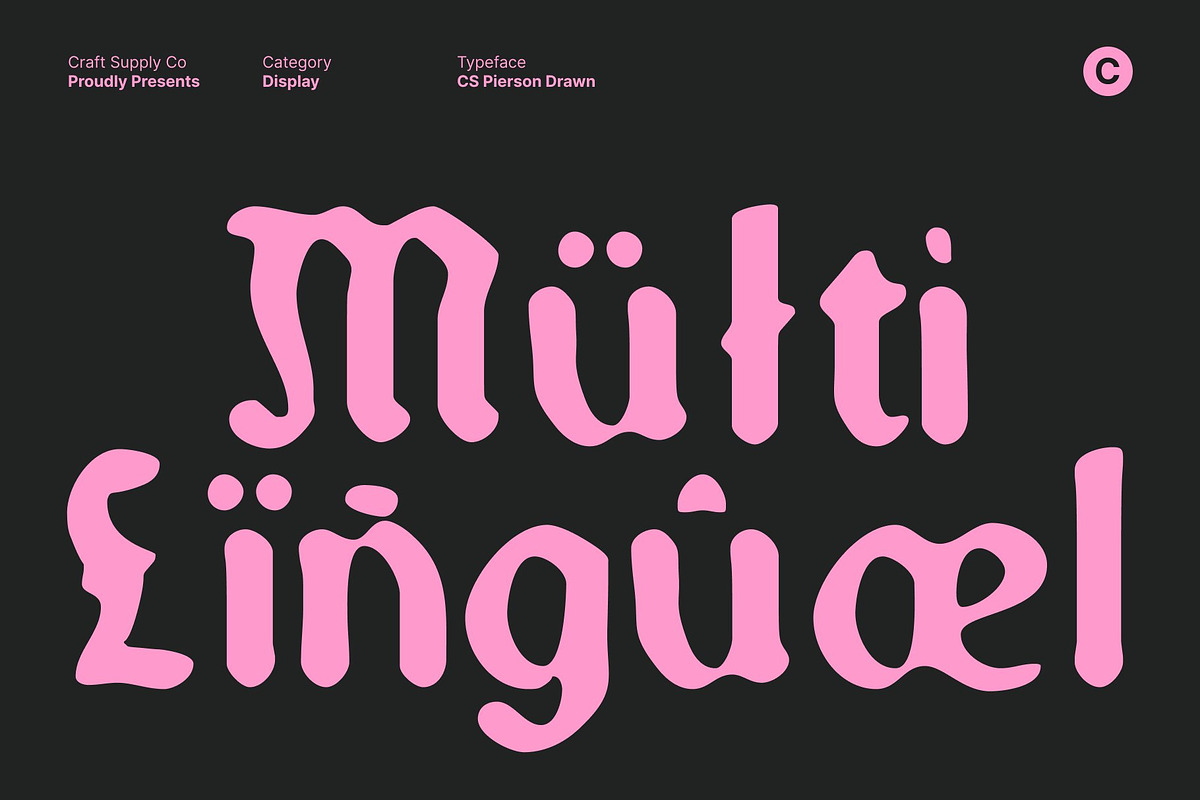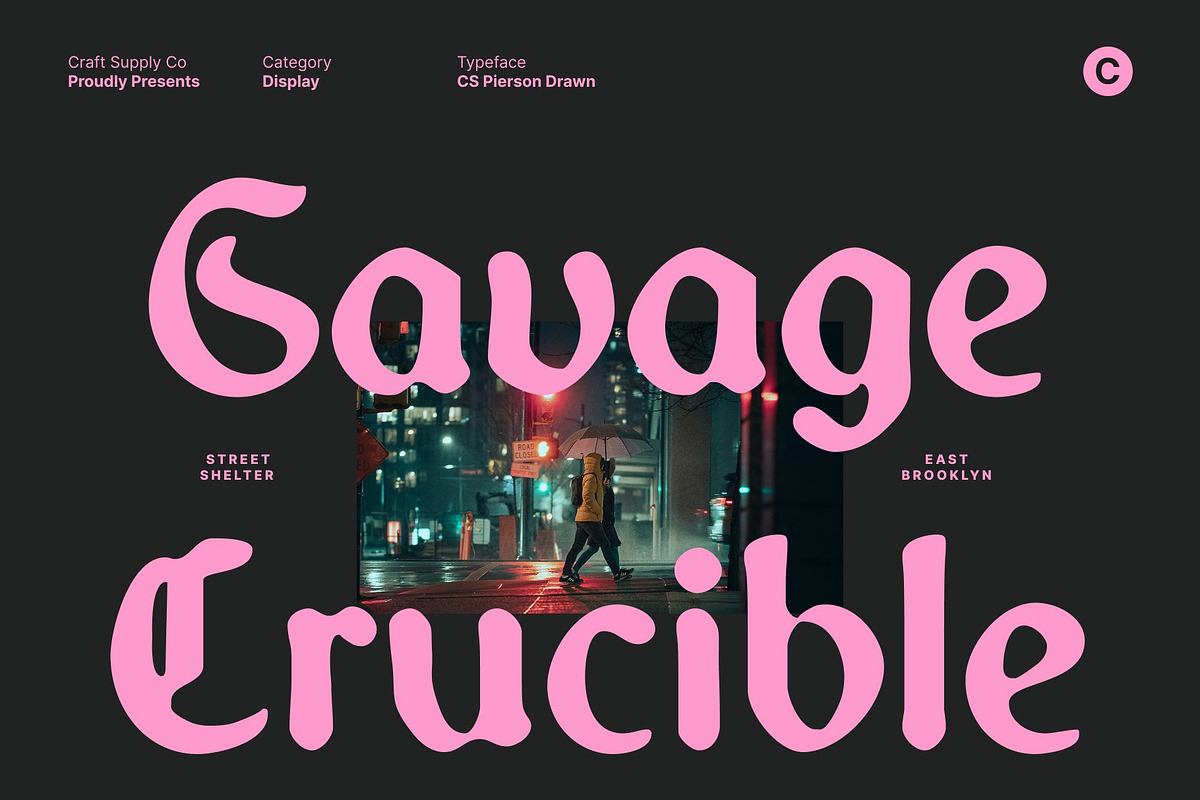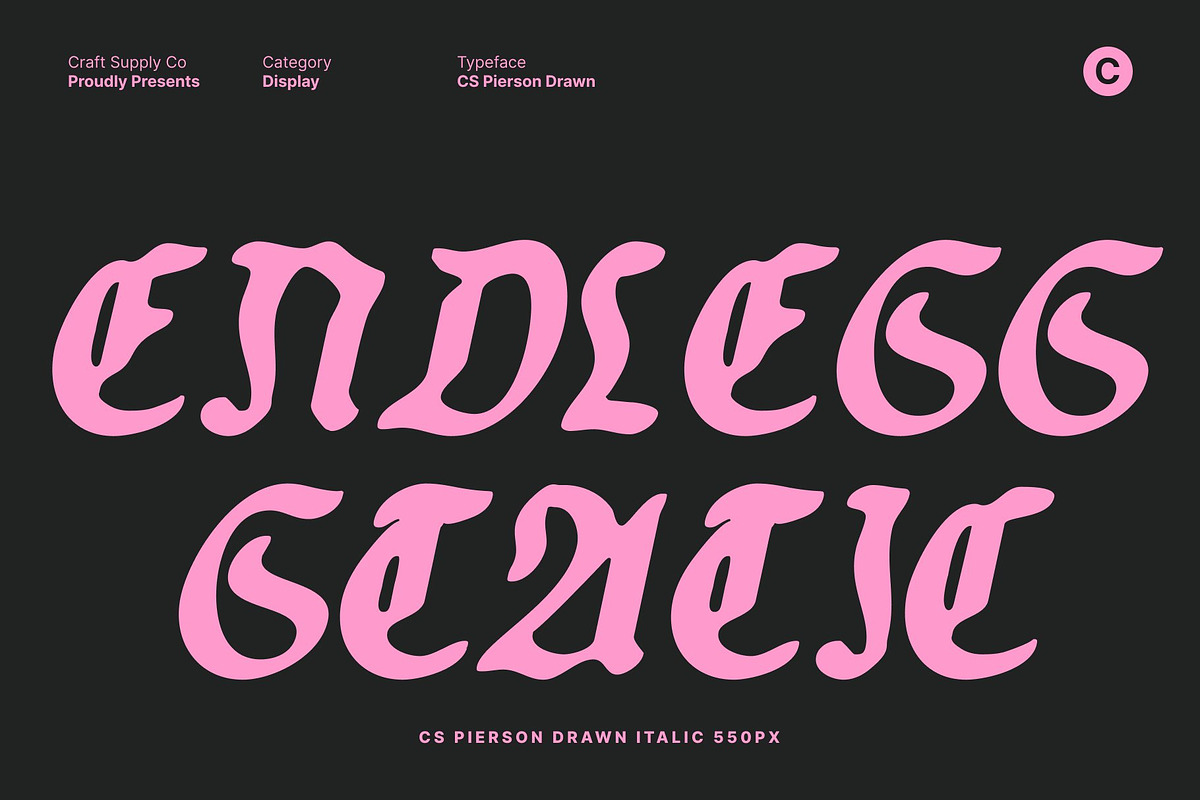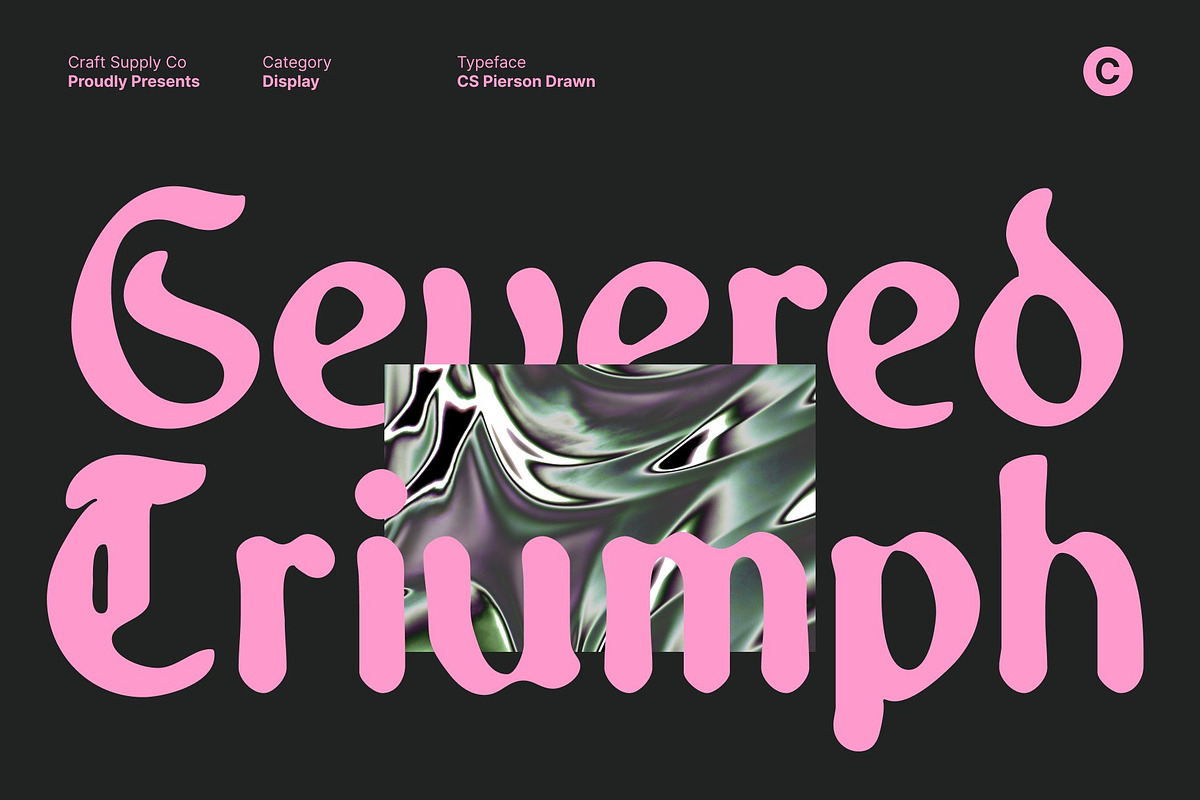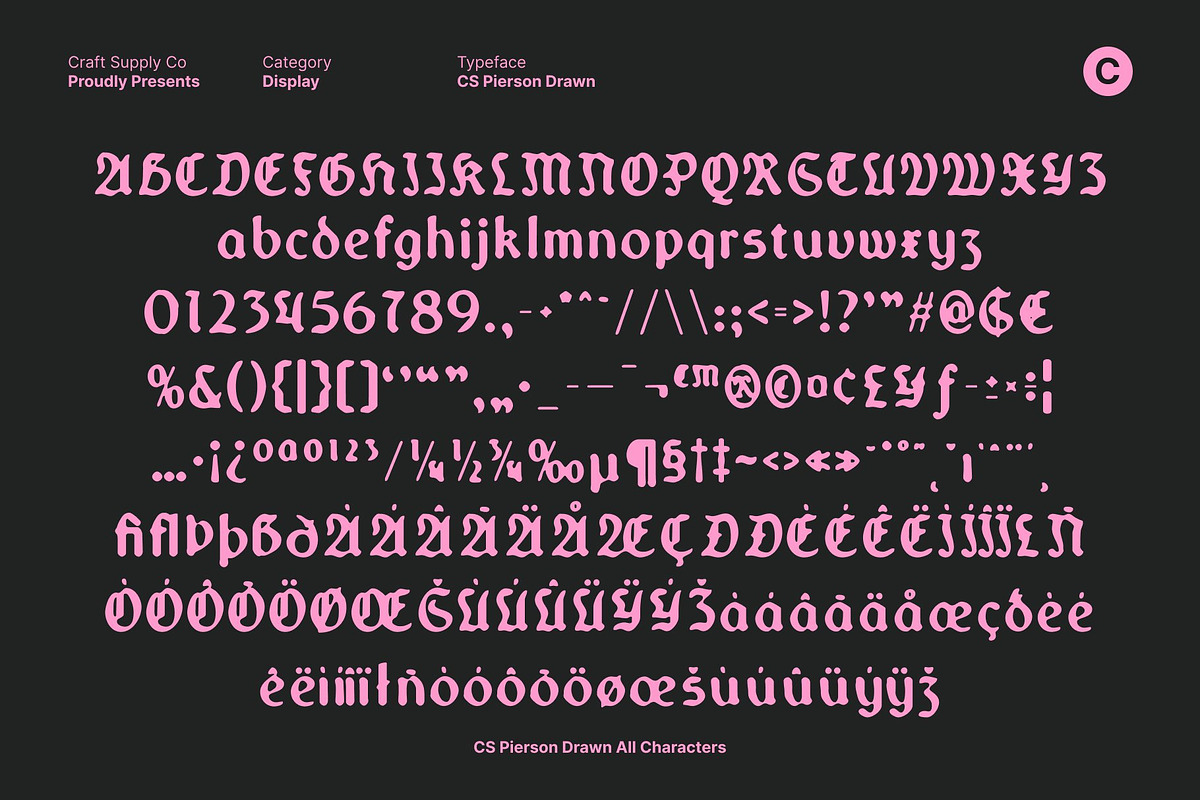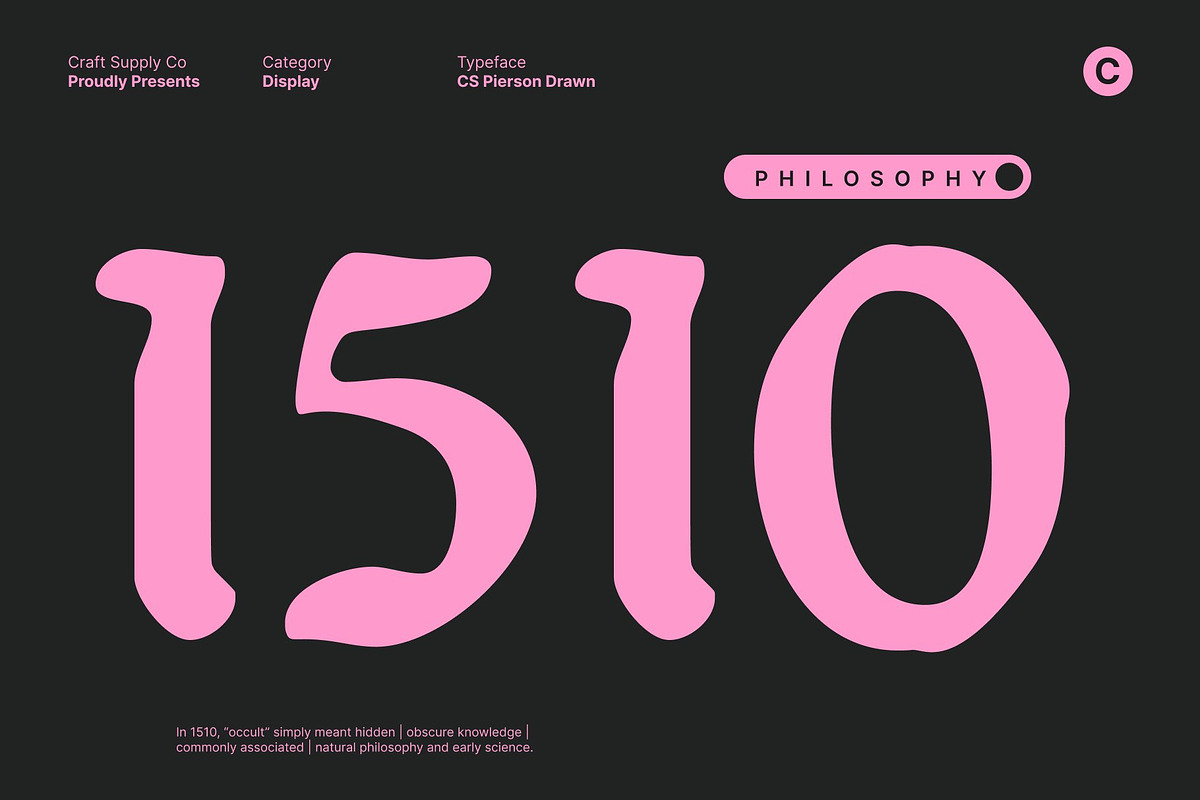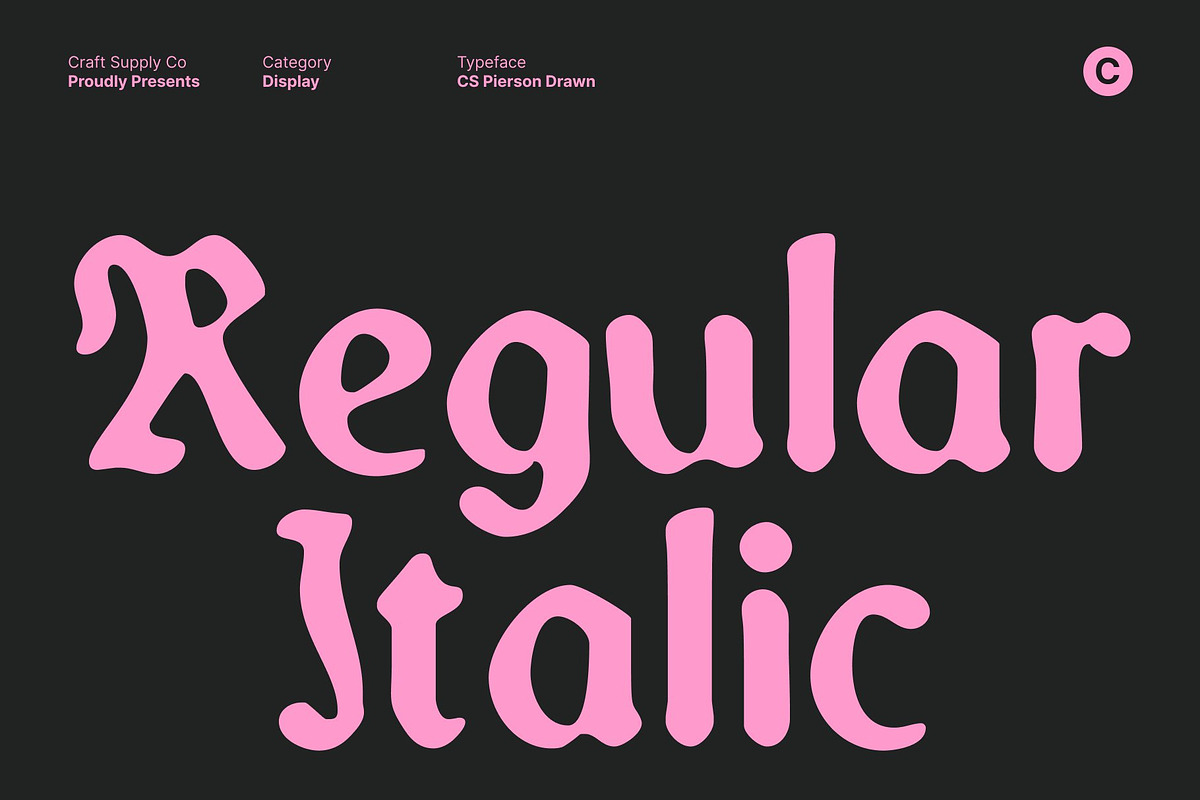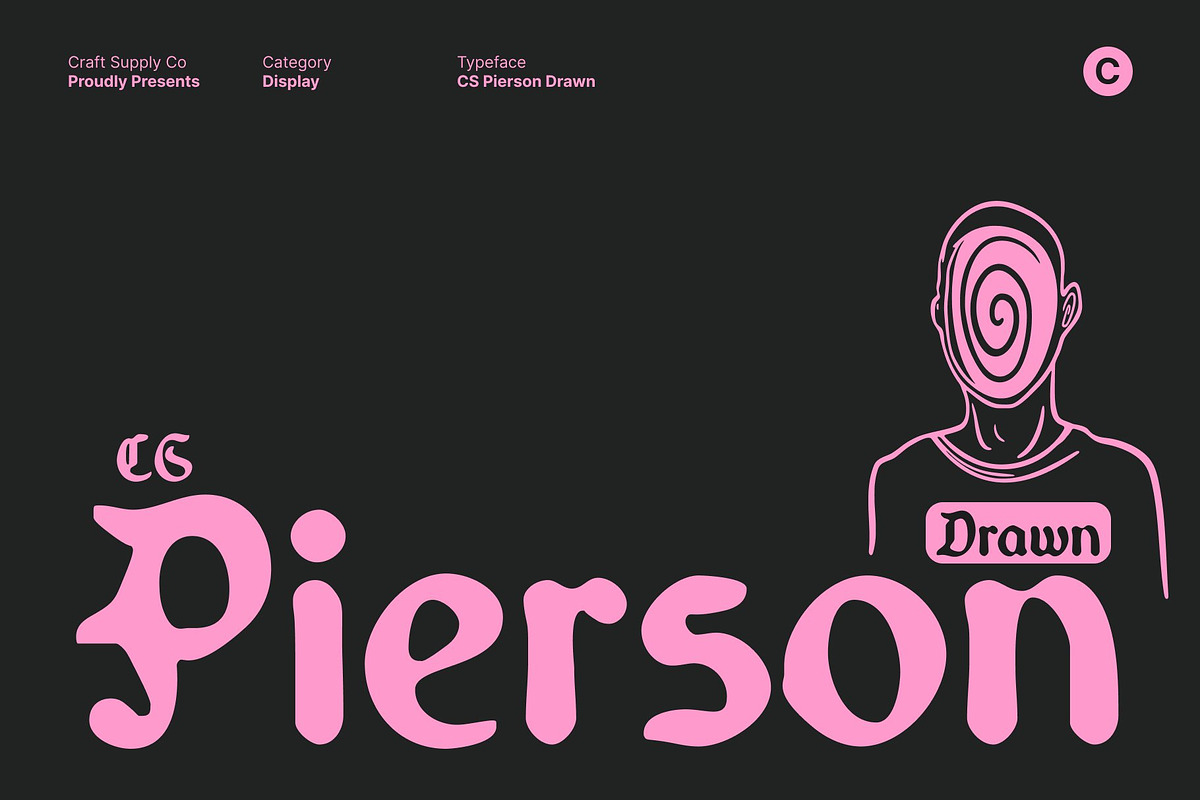
CS Pierson Drawn
CS Pierson Drawn – Gothic Display Font with Handcrafted Depth
Bold Gothic Structure with Dramatic Presence This is a Gothic display font built with sharp, bold letterforms that project strength and authority. Its angular construction and solid weight create a powerful visual presence rooted in classic Gothic typography. Each character feels deliberate and commanding, making the font ideal for designs that require impact, intensity, and a sense of tradition.
Hand-Drawn Texture for Artistic Character The hand-drawn texture adds an expressive, handcrafted layer that gives this font its distinctive personality. Subtle irregularities and organic strokes soften the rigid Gothic structure, introducing warmth and artistic depth. This drawn effect enhances the mysterious atmosphere of the font, making it feel authentic and visually engaging rather than purely ornamental or mechanical.
Mysterious Mood with Historical Influence This font is carries a deep sense of heritage inspired by historical lettering and classic Gothic aesthetics. Its sharp details and textured finish evoke mystery, storytelling, and old-world craftsmanship. This balance between strength and artistry makes the font especially suitable for themes involving fantasy, dark romance, folklore, or dramatic narratives where mood and emotion are essential.
Ideal for Impactful Branding and Display Use Designed for strong visual statements, performs beautifully in branding, dramatic posters, book titles, album artwork, and editorial headlines. Its bold Gothic presence combined with handmade texture creates a memorable typographic identity that stands out instantly.